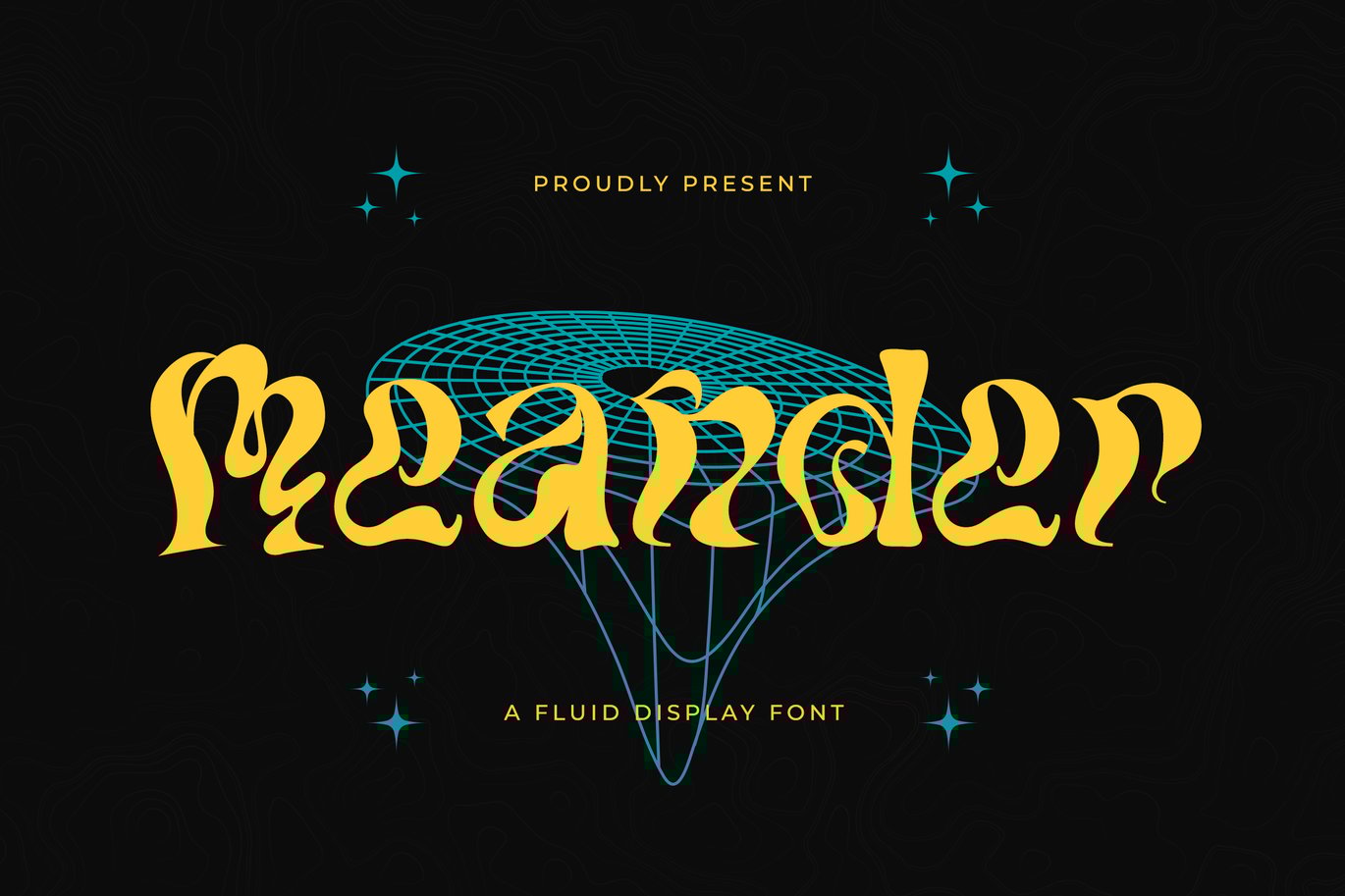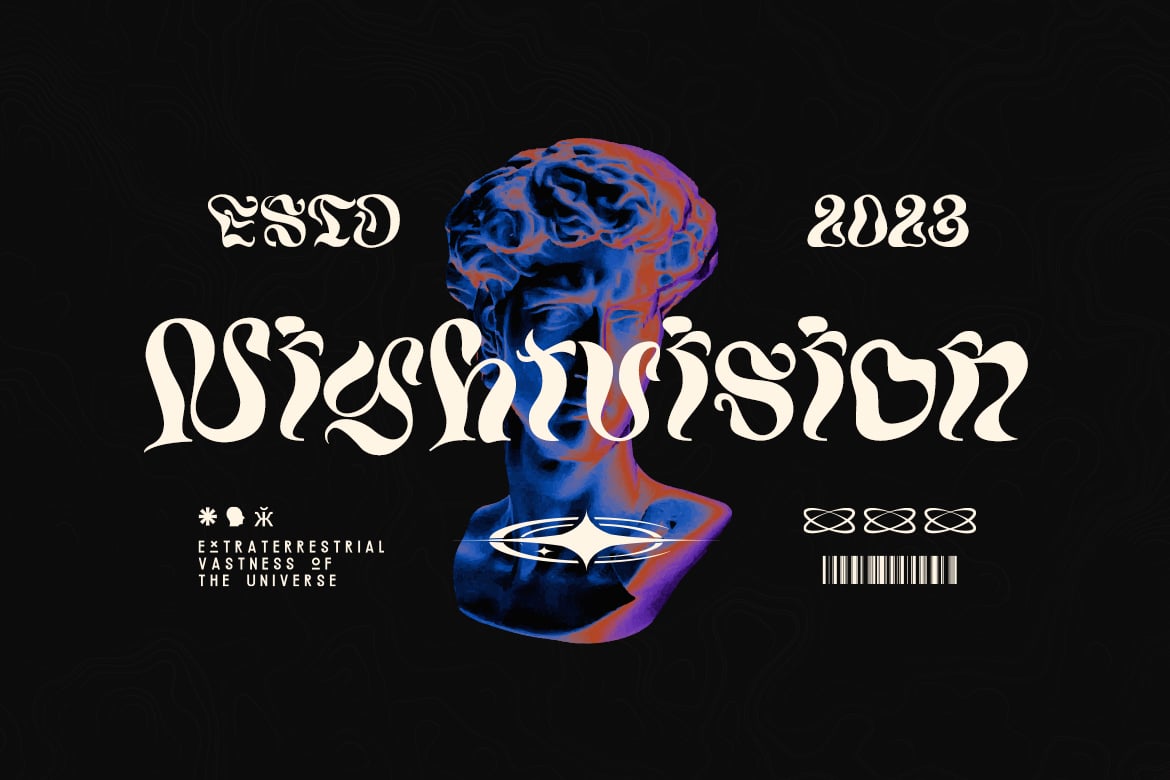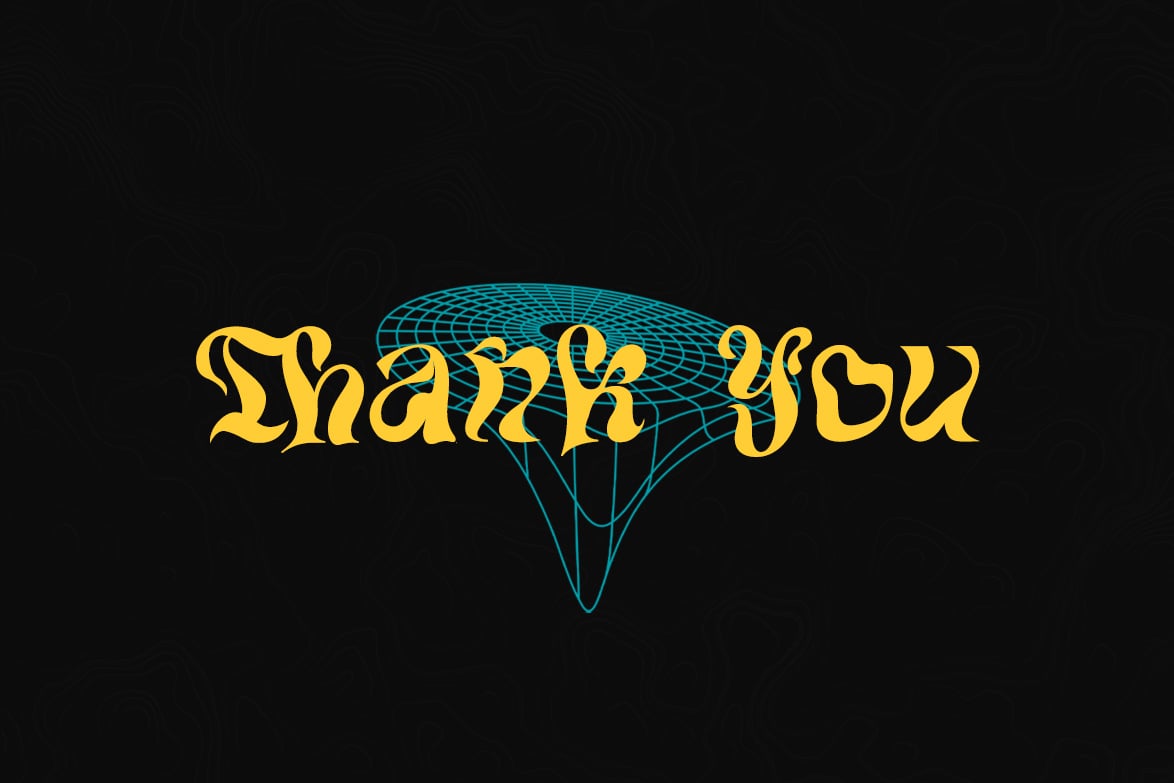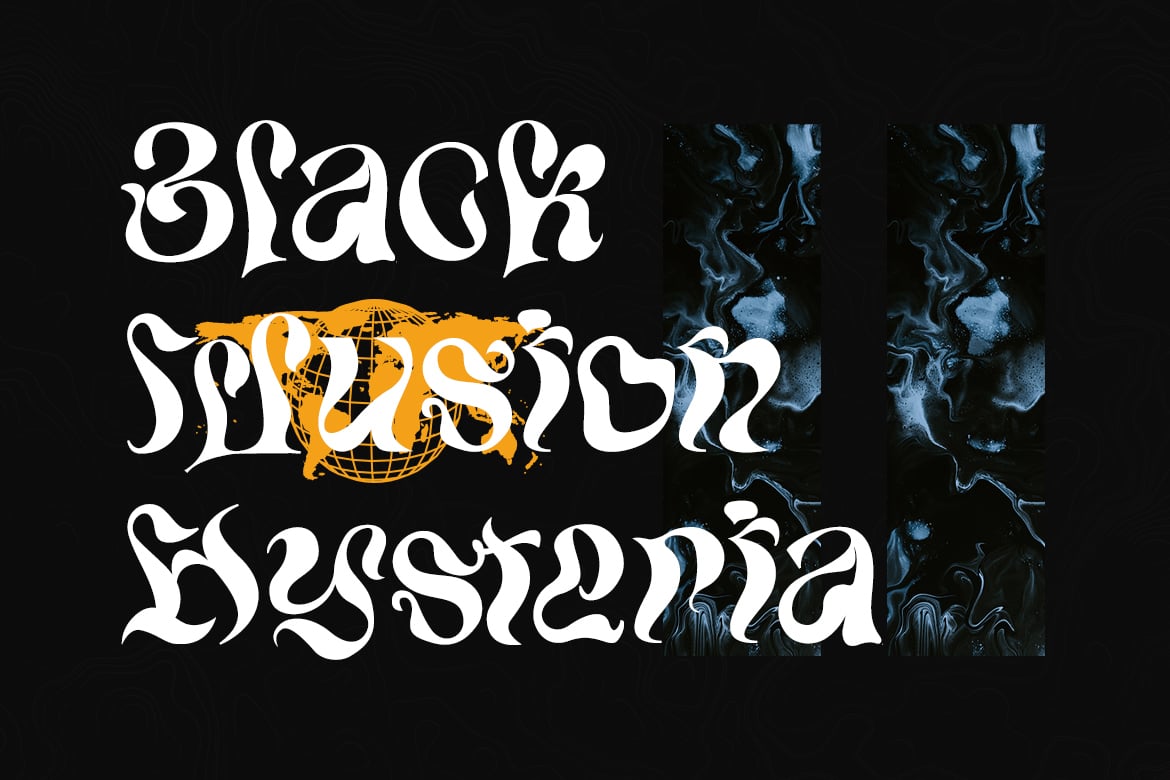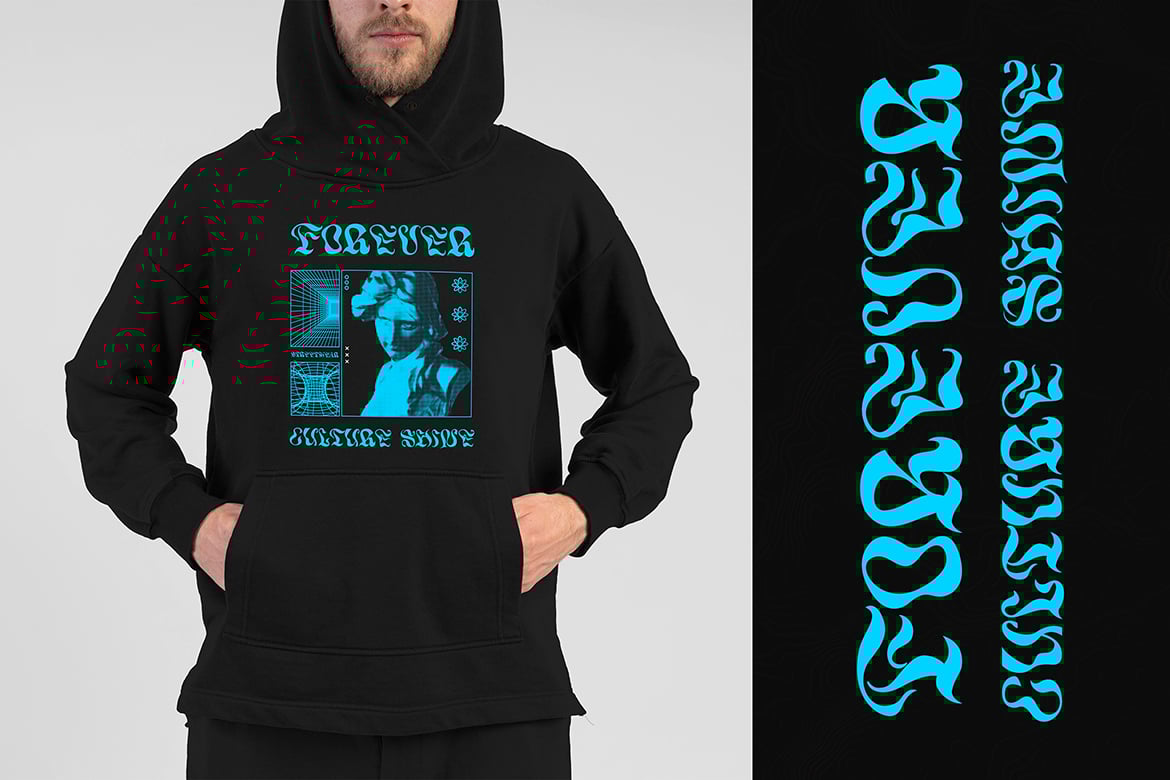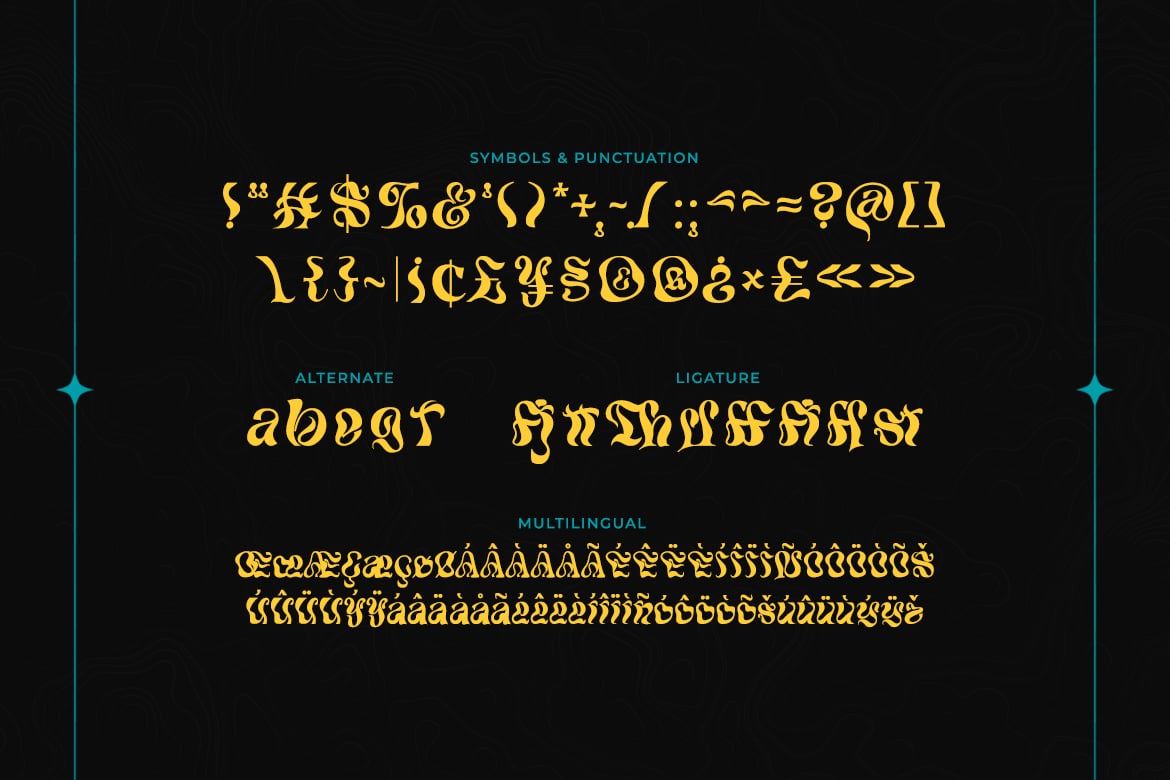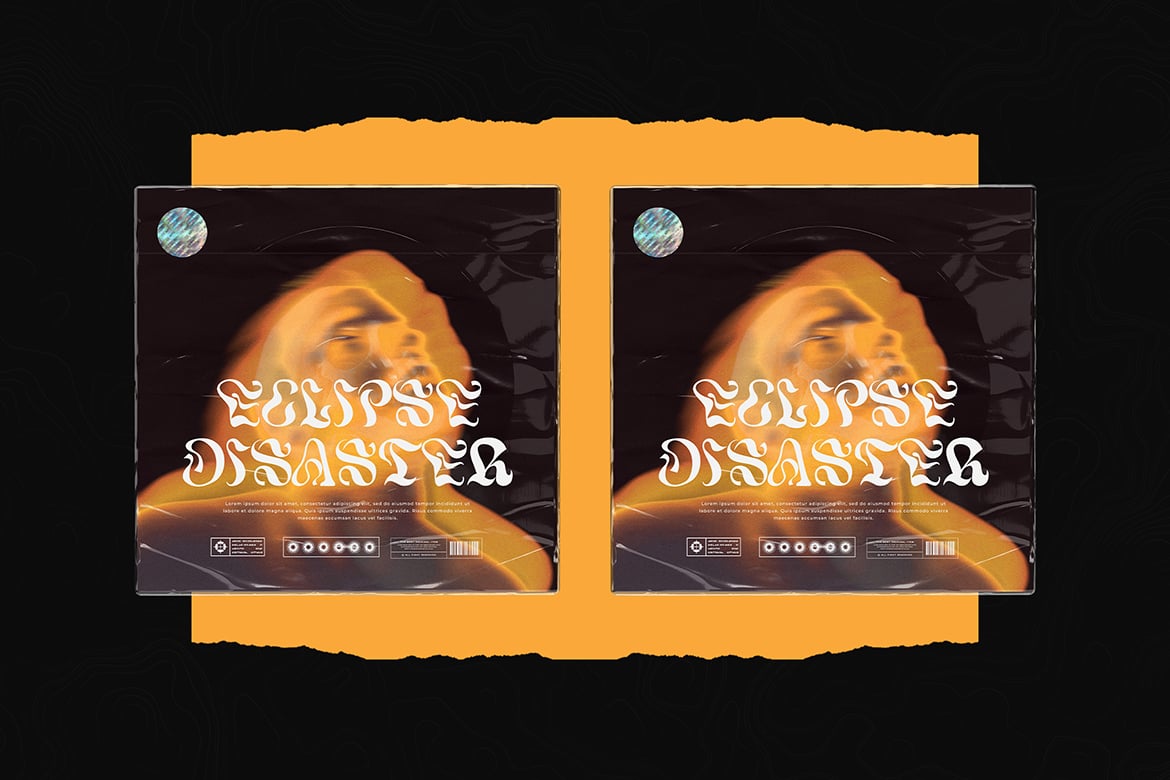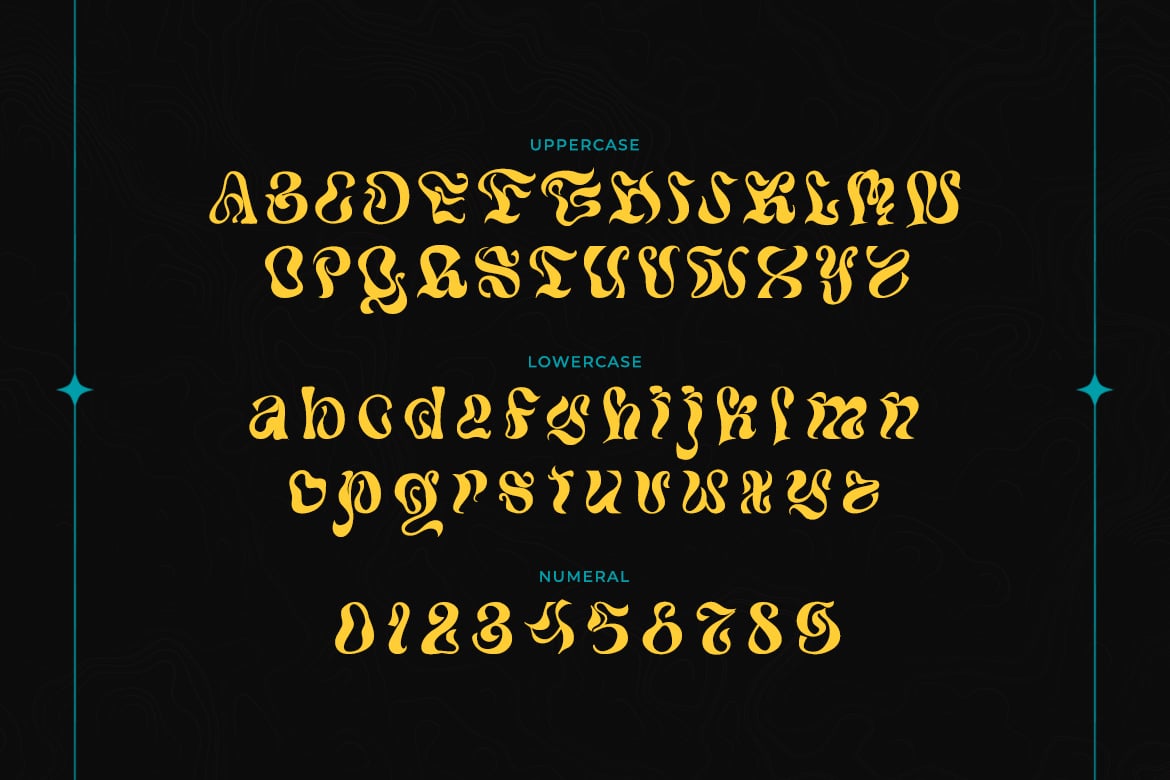
Meander – A Fluid Display Font
Meander is a unique liquid display font.
Its casual charm makes it appear wonderful down-to-earth, readable, and versatile.
This font will look outstanding in any context, whether it’s being used on busy backgrounds or as a standalone headline especially monochrome on design!